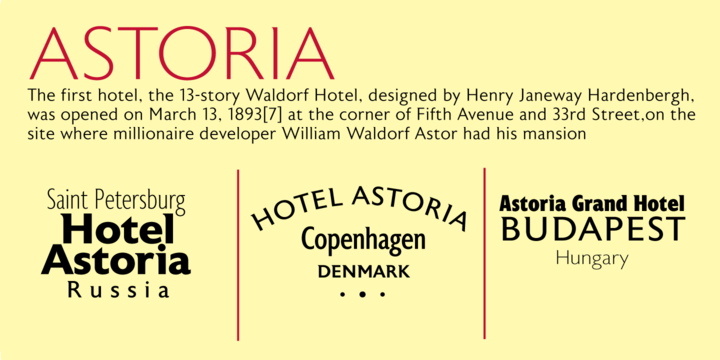
The Astoria Family Font: A Designer’s New Best Friend
I still remember the design project that led me to discover the Astoria Family Font. I was working on a branding project for a local boutique, and I needed a font that would convey a sense of elegance and approachability. I had spent hours scouring font websites, but nothing seemed quite right. That was when I stumbled upon Astoria, and it quickly became my go-to font for the project.
Based heavily on Gill, especially in the mid-weights, Astoria has a subtle top-left serif that makes it not quite a Roman and not quite a Sans. This unique feature makes it perfect for designers looking for a font that’s a little bit different. Designed specifically as a text face, Astoria still works very well as a headline font, making it an incredibly versatile addition to any designer’s toolkit.
So, what do I love about Astoria? Here are a few things:
• ✨ Unique character: Astoria’s subtle serif sets it apart from other fonts in its class.
• ✅ Versatility: It works beautifully as both a text and headline font.
• ✅ Legibility: Even at smaller sizes, Astoria remains clear and easy to read.
• ✨ Elegant feel: Astoria brings a touch of sophistication to any design.
Of course, no font is perfect, and Astoria does have a few small quirks:
• 🤔 Limited availability of certain characters: While Astoria has a wide range of characters, some specialty glyphs might be missing.
• ⚠️ Can be overwhelming in large blocks of text: While it’s designed for text, using Astoria for long paragraphs might make the text feel dense.
The Story Behind Astoria
While the origins of Astoria are shrouded in mystery, it’s said that the font was created by a team of designers who wanted to craft a font that would bridge the gap between serif and sans-serif. Inspired by the classic Gill font, they added a subtle serif to create a unique and versatile typeface.
Author Alan Meeks
Q: What makes Astoria different from other fonts?
A: Astoria’s subtle top-left serif sets it apart from other fonts, making it a great choice for designers looking for something unique.
Q: Can I use Astoria for body text?
A: Absolutely! Astoria was designed specifically as a text face, making it perfect for long-form content.
Q: Does Astoria support OpenType features?
A: Yes, Astoria supports OpenType features, including stylistic alternates and glyphs.
Q: Is Astoria suitable for digital designs?
A: Yes, Astoria works beautifully in digital designs, from websites to social media graphics.